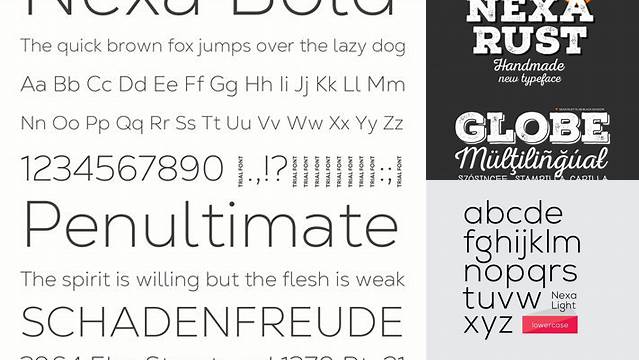
Nexa Bold: Free Font For Modern Design
Are you on the hunt for a versatile and stylish font that can add a touch of modern flair to your designs? Look no further, guys! In this guide, we're diving deep into the world of Nexa Bold, a fantastic font that's not only free but also incredibly useful for a wide range of projects. Whether you're a seasoned designer or just starting out, understanding the ins and outs of Nexa Bold can seriously level up your typography game.
What is Nexa Bold?
Nexa Bold is more than just a typeface; it’s a statement. Characterized by its clean lines, geometric shapes, and a contemporary vibe, this font has become a go-to choice for designers across the globe. Its boldness commands attention, making it perfect for headlines, logos, and any situation where you need your text to pop. But what makes Nexa Bold truly special is its versatility. It's equally at home in digital designs and print materials, ensuring your message is delivered with impact, no matter the medium.
The Origins and Evolution of Nexa Bold
To truly appreciate Nexa Bold, let's take a quick trip down memory lane and explore its origins and evolution. Created by the talented font foundry, Fontfabric, Nexa Bold is part of the larger Nexa font family. Fontfabric, known for its innovative and high-quality typefaces, aimed to create a font that was both modern and highly functional. Nexa Bold, with its strong, geometric structure, quickly became a standout within the family, capturing the attention of designers seeking a contemporary edge. Over the years, Nexa Bold has seen various iterations and updates, each refining its character and expanding its utility. This evolution has ensured that Nexa Bold remains a relevant and sought-after font in the ever-changing landscape of typography.
Key Characteristics and Design Principles
What exactly are the key characteristics that define Nexa Bold? Let's break it down. The font boasts a geometric sans-serif design, which means it's built upon clean, geometric shapes without the serifs (the little feet) found in traditional fonts like Times New Roman. This gives it a very modern and minimalist look. The bold weight is another crucial feature, ensuring high readability and visual impact. It's not just about being thick; it's about commanding attention. Nexa Bold also excels in its spacing and kerning (the space between letters), ensuring that words appear balanced and harmonious. This attention to detail is what elevates Nexa Bold from a simple font to a design asset. The overall design principle is functionality meets style, making it suitable for a wide array of applications. From sleek websites to eye-catching posters, Nexa Bold brings a sense of sophistication and clarity.
Why Choose Nexa Bold for Your Projects?
So, why should you choose Nexa Bold for your next project? Well, there are tons of reasons! Its versatility, readability, and modern aesthetic make it a top contender for various design needs. Whether you're crafting a killer logo, designing a website, or putting together marketing materials, Nexa Bold has got your back. Let's dive into some specific scenarios where this font truly shines.
Versatility Across Different Design Projects
The versatility of Nexa Bold is one of its biggest selling points. This font isn't a one-trick pony; it’s a workhorse that can adapt to a multitude of design environments. Imagine you're working on a website design. Nexa Bold's clean, modern lines make it an excellent choice for headers and body text alike, providing a consistent and professional look throughout your site. Or perhaps you're designing a logo. The boldness of the font ensures your brand name stands out, while its geometric structure conveys a sense of stability and modernity. In print, Nexa Bold is equally impressive. It's perfect for brochures, posters, and even business cards, offering excellent readability and visual appeal. Its adaptability extends to various industries as well. From tech startups to fashion brands, Nexa Bold's contemporary vibe resonates across different sectors. This versatility makes it a valuable asset in any designer's toolkit.
Readability and Legibility in Various Mediums
Readability and legibility are paramount when choosing a font, and Nexa Bold excels in both areas. Readability refers to how easily the text can be read in blocks, while legibility pertains to how easily individual characters can be distinguished. Nexa Bold's clear, geometric shapes and consistent letterforms contribute to its high legibility. Each character is distinct and well-defined, preventing confusion and ensuring that your message is conveyed accurately. The bold weight further enhances legibility, especially in headings and titles where you want to make a strong impact. In digital mediums, Nexa Bold shines thanks to its clean lines, which render crisply on screens of all sizes and resolutions. It avoids the fuzziness that can plague some fonts when viewed online. In print, its well-balanced letter spacing and kerning ensure that text remains readable even at small sizes. Whether you're designing for web, print, or mobile, Nexa Bold provides a reliable and legible typographic solution.
Creating a Modern and Professional Aesthetic
If you're aiming for a modern and professional aesthetic, Nexa Bold is your secret weapon. Its design principles are rooted in contemporary typography, making it an ideal choice for projects that need to exude sophistication and style. The geometric sans-serif structure gives it a clean and uncluttered appearance, which is synonymous with modern design trends. This simplicity doesn't equate to blandness, though. Nexa Bold has a distinct personality, thanks to its strong lines and confident presence. It conveys a sense of efficiency and clarity, which is crucial for professional communications. Whether you're designing a corporate website, marketing materials, or even a resume, Nexa Bold can elevate your design and leave a lasting impression. Its contemporary feel makes it particularly well-suited for tech companies, creative agencies, and any business that wants to project a forward-thinking image. By using Nexa Bold, you're signaling that your brand is current, competent, and committed to quality design.